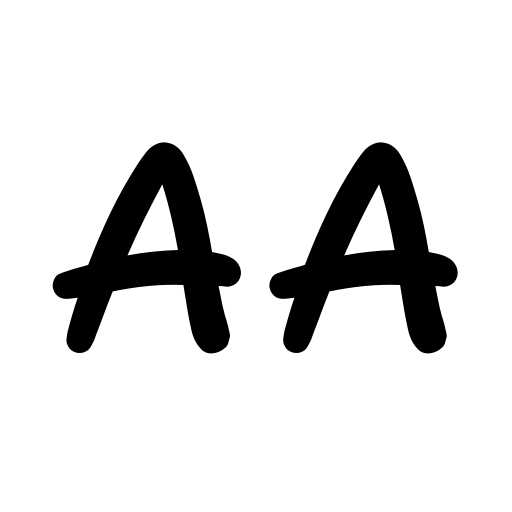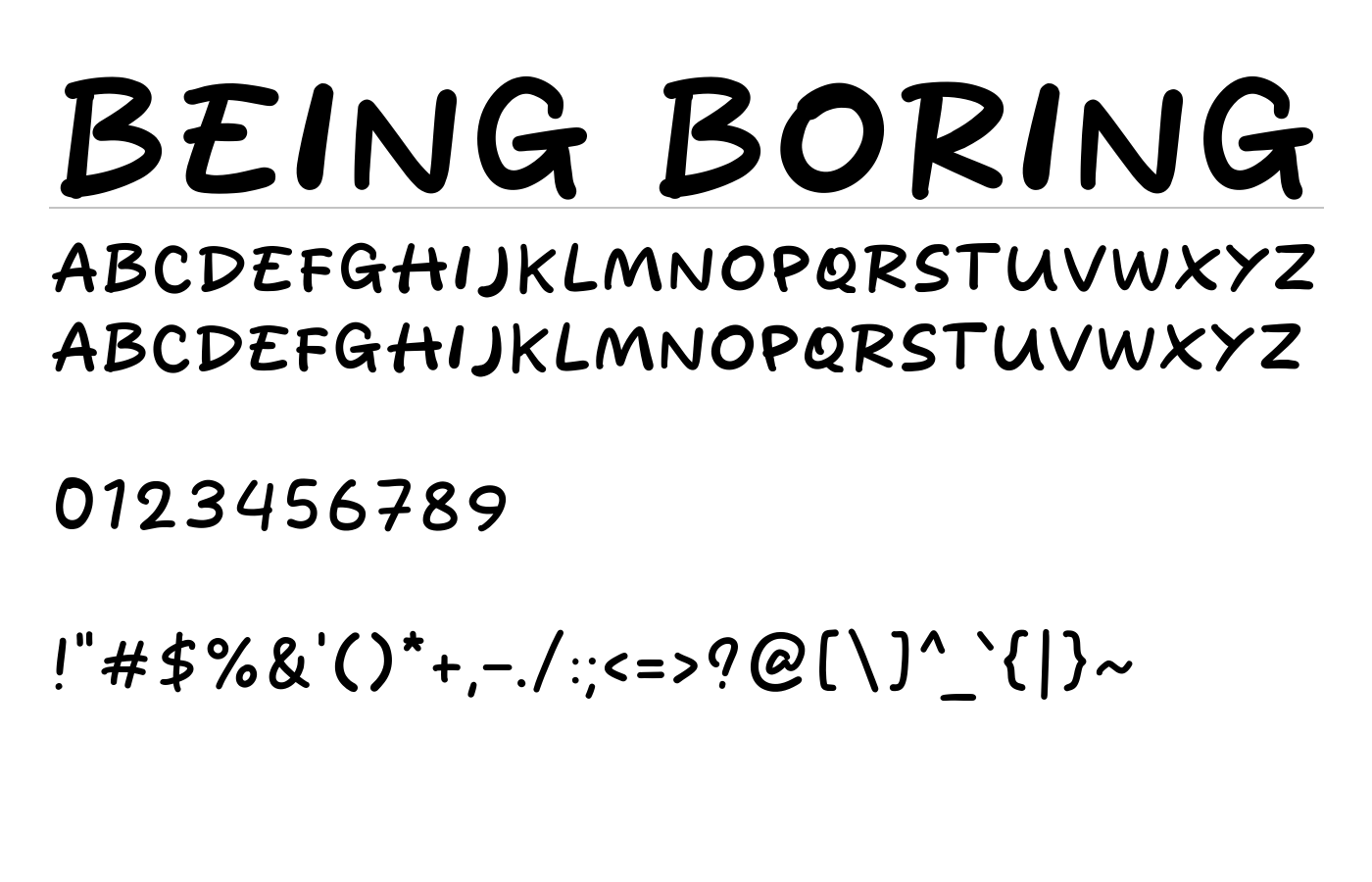
Being Boring is a casual, handwritten sans serif font with a lively and informal feel. Its rounded, slightly irregular letterforms and consistent medium weight make it approachable and friendly, perfect for projects seeking a relaxed and personal touch. This font is ideal for playful branding, casual invitations, or any design that benefits from a human, hand-drawn vibe.
Being Boring Font
About Being Boring Font
| Font family | Being Boring Font |